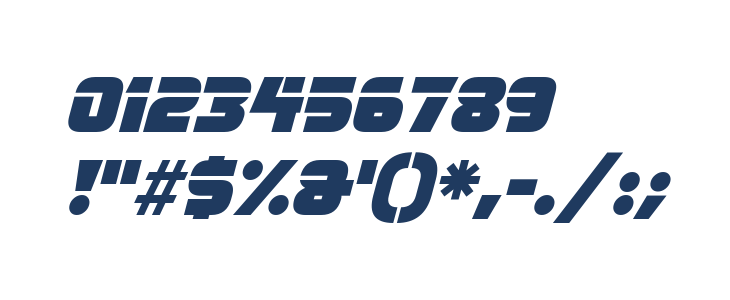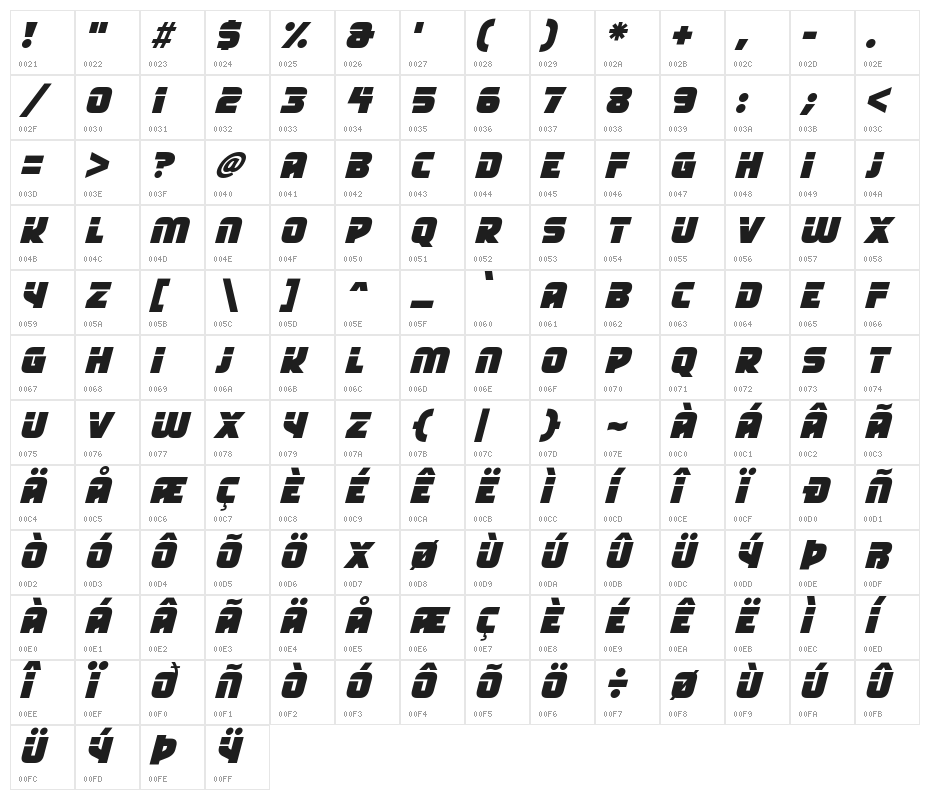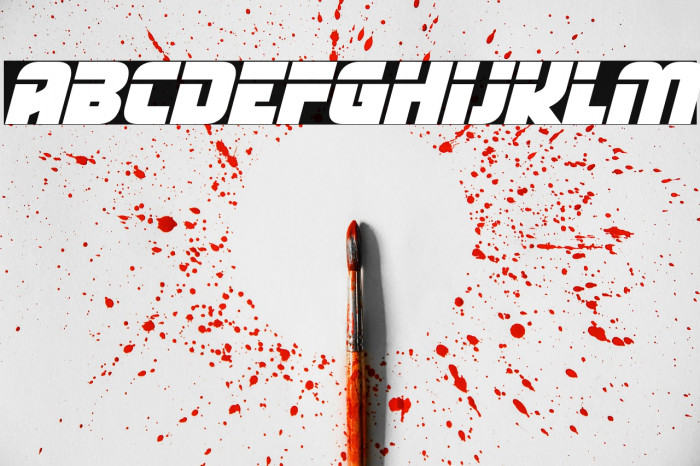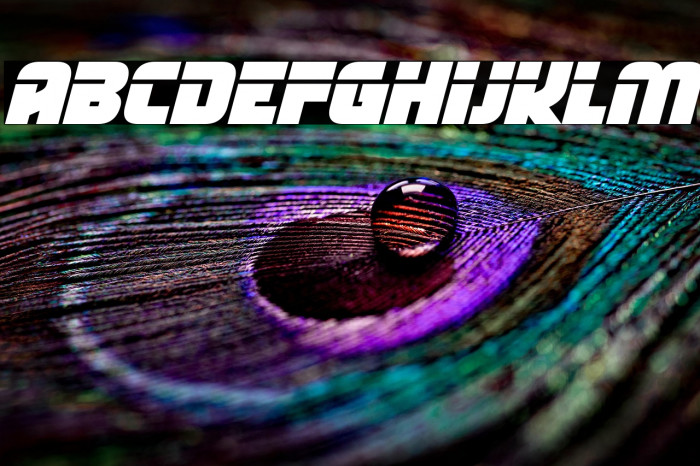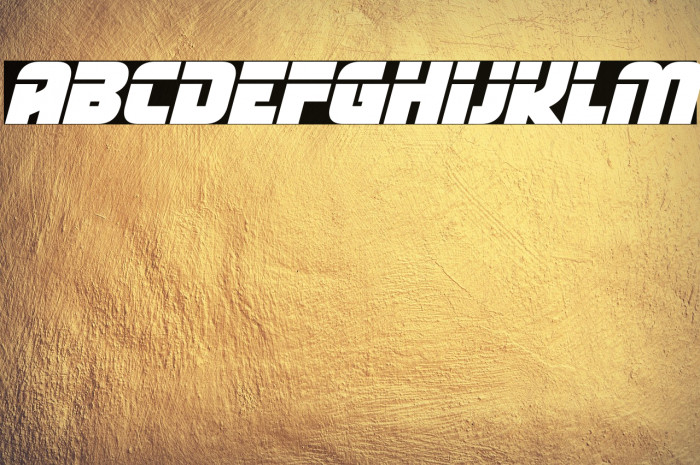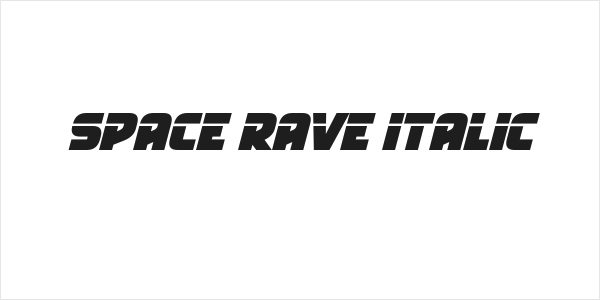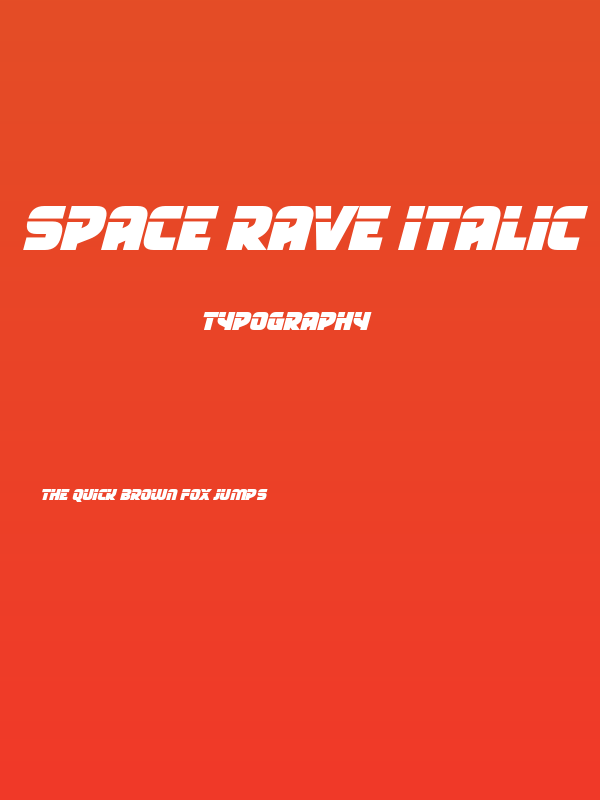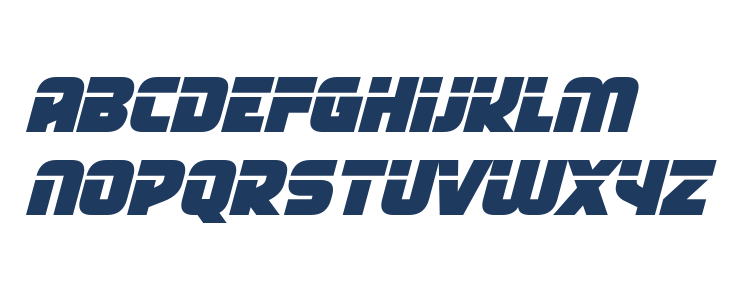
Space Rave Italic Font
Space Rave Italic Description
This font features a bold, futuristic design with a strong emphasis on angular shapes and sharp edges. The characters are italicized, giving a sense of motion and speed, which is further enhanced by the geometric cuts and slants. The uppercase and lowercase letters maintain a consistent style, with a uniform thickness that contributes to a cohesive look. The numbers and special characters follow the same design principles, ensuring a seamless integration across different uses. This font is ideal for projects that require a modern, dynamic aesthetic.
| Proposed Projects | Ideal for sci-fi themed designs, video game titles, tech branding, and futuristic posters. |